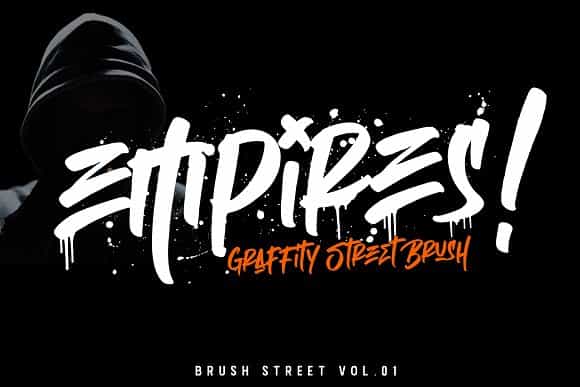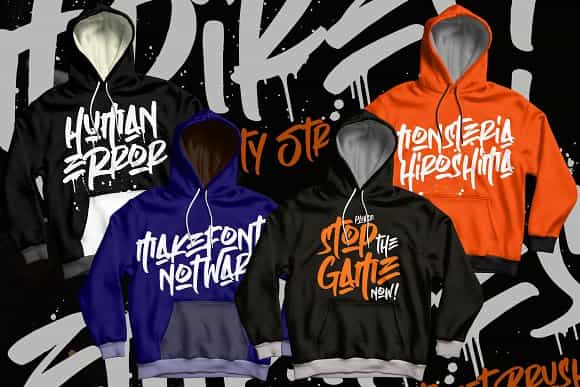
Empires Street Brush Font is a supercharged, street-wise brush font bursting with energy. With extra attention to quick strokes and sharp details, Empires is ideal for logos, apparel, quotes, product packaging, or anything which needs a typographic turbo-boost.